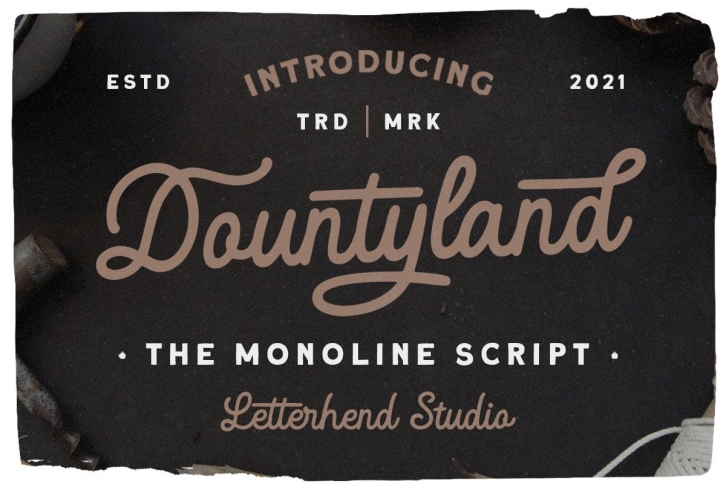
Dountyland is a gorgeous font that was realeased on December 21, 2021. The font can be used in many style contexts and design environments. Perfect for invitations, magazines, websites, logos, and more! It was designed by Letterhend and the file size is 19.56 MB. Thanks for checking out this font!